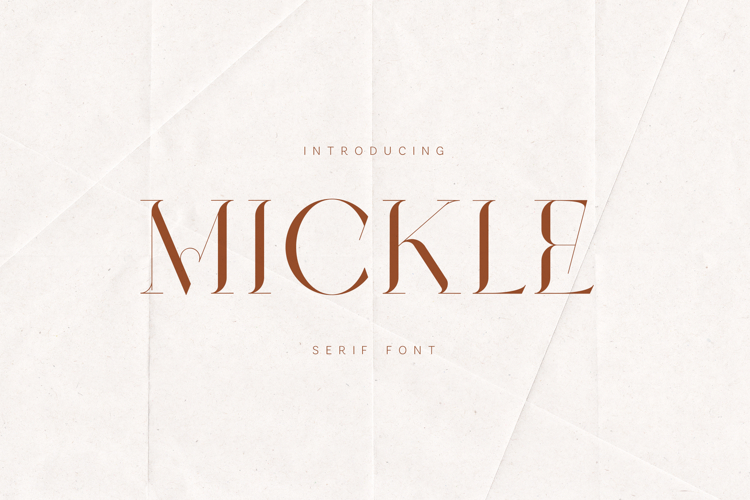
Mickle Elegant Serif Font
Mickle is an elegant high-contrast serif font crafted for refined, modern design. With its delicate strokes, sharp terminals, and graceful curves, it brings a sophisticated and luxurious tone to any composition.
The typeface balances classic serif influence with contemporary minimalism. Thin hairlines meet strong verticals, creating a striking contrast that feels both timeless and fashion-forward.
Mickle is designed to shine in high-end visual environments, making it perfect for:
• fashion editorials
• luxury branding
• beauty packaging
• magazine layouts
• logo design
• invitations & stationery
• social media aesthetics
• high-end marketing visuals
Its distinctive letterforms include subtle decorative details that add personality without overwhelming the composition, giving your typography a unique, premium feel.
The font includes uppercase, lowercase, numerals, punctuation, symbols, and multilingual support, making it versatile across international projects.
If you’re looking for a typeface that blends elegance, contrast, and modern luxury, Mickle is built to elevate your designs.